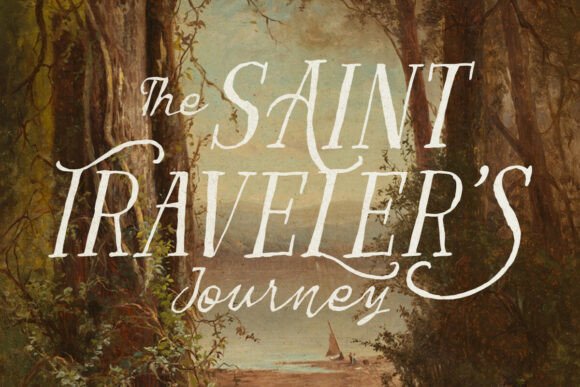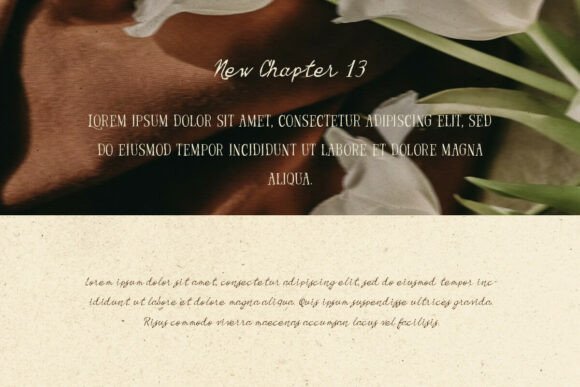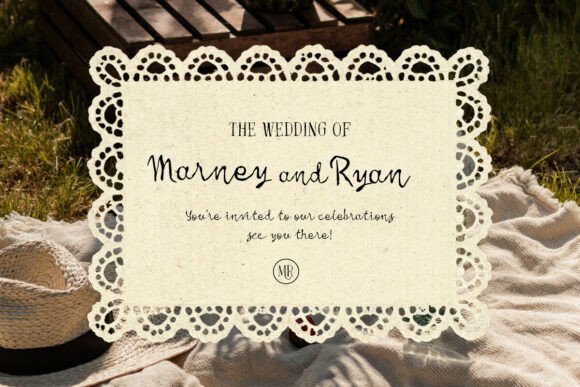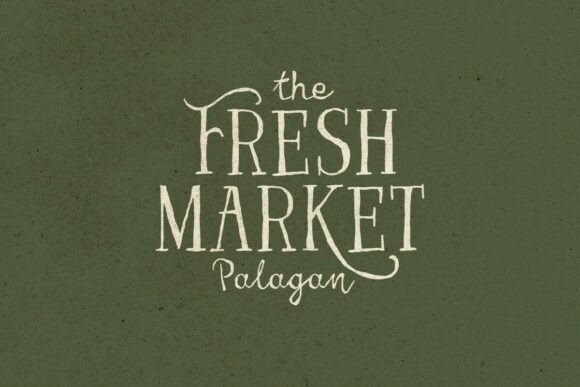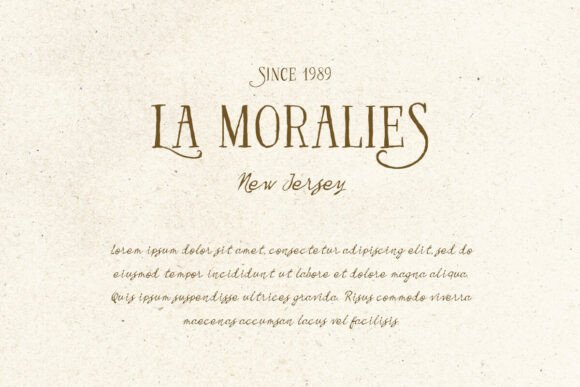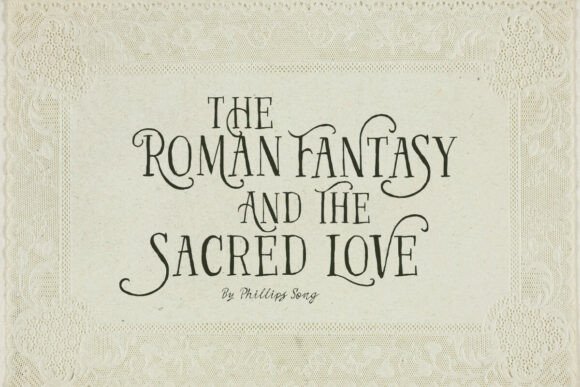
Introduction to Locked Whisper Font
As a designer, have you ever found yourself lost in the world of typography, searching for the perfect font to capture the essence of your creative project? Maybe it’s a wedding invitation, a branding campaign, or a heartfelt poem – whatever it is, the right font can make all the difference. For me, that font is Locked Whisper Font. There’s something about its delicate, handwritten script that speaks directly to the soul, transporting me to a world of quiet romance and subtle emotion.
With its unique blend of a serif and script, Locked Whisper Font is a design resource that offers endless possibilities for creative expression. Whether you’re working on a high-quality editorial layout, designing packaging that exudes warmth and nostalgia, or simply looking for a font to add a touch of magic to your free download, this font duo is sure to captivate your audience. And the best part? Its transparent background makes it a breeze to work with, allowing you to focus on what really matters – bringing your vision to life.
Key Features of Locked Whisper Font
- High-quality, elegant design perfect for creative projects and designs
- Unique, handwritten style ideal for invitations, quotes, and other creative designs
Honest Review: Locked Whisper Font
I recently stumbled upon the Locked Whisper Font while searching for a unique design resource to enhance my creative project. As a designer, I was excited to explore this font and see if it would meet my expectations.
- ✨ High quality and crisp typography, perfect for both digital and print designs
- ✨ Unique and creative style that adds a touch of elegance to any project
- ✨ Transparent background, making it easy to customize and combine with other design elements
- ⚠️ Limited font styles and variations, which may not be suitable for complex design projects
Overall, I’m impressed with the Locked Whisper Font’s high-quality typography and creative style. While it may have some limitations, I believe it’s a valuable design resource for designers working on creative projects. If you’re looking for a unique and elegant font, I’d definitely recommend checking it out.
Introduction to Locked Whisper Font
Locked Whisper Font is a high-quality design resource that can add a touch of elegance to your creative project. With its transparent background, this font is perfect for designers looking for a versatile and stylish addition to their work.
Tips for Getting the Most Out of Locked Whisper Font
To get the most out of Locked Whisper Font, use it in conjunction with other design elements to create a cohesive look. Experiment with different font sizes and colors to add depth and interest to your designs.
Locked Whisper Font is perfect for:
Creating stylish headings and titles
Designing wedding invitations and stationery
Adding a touch of elegance to business cards and brochures